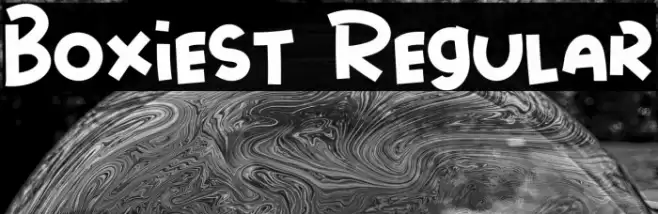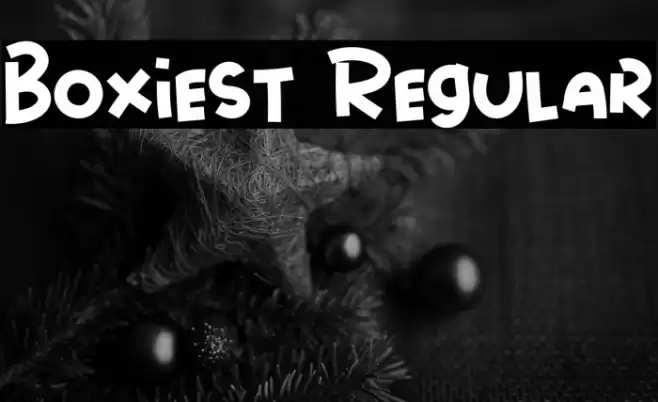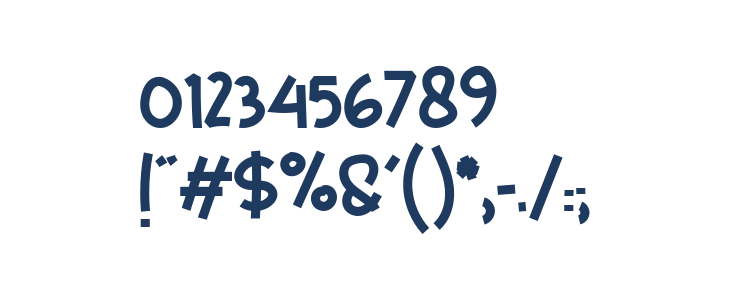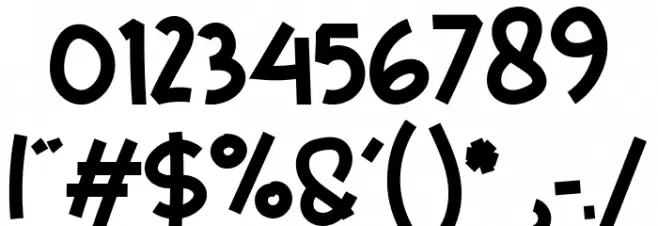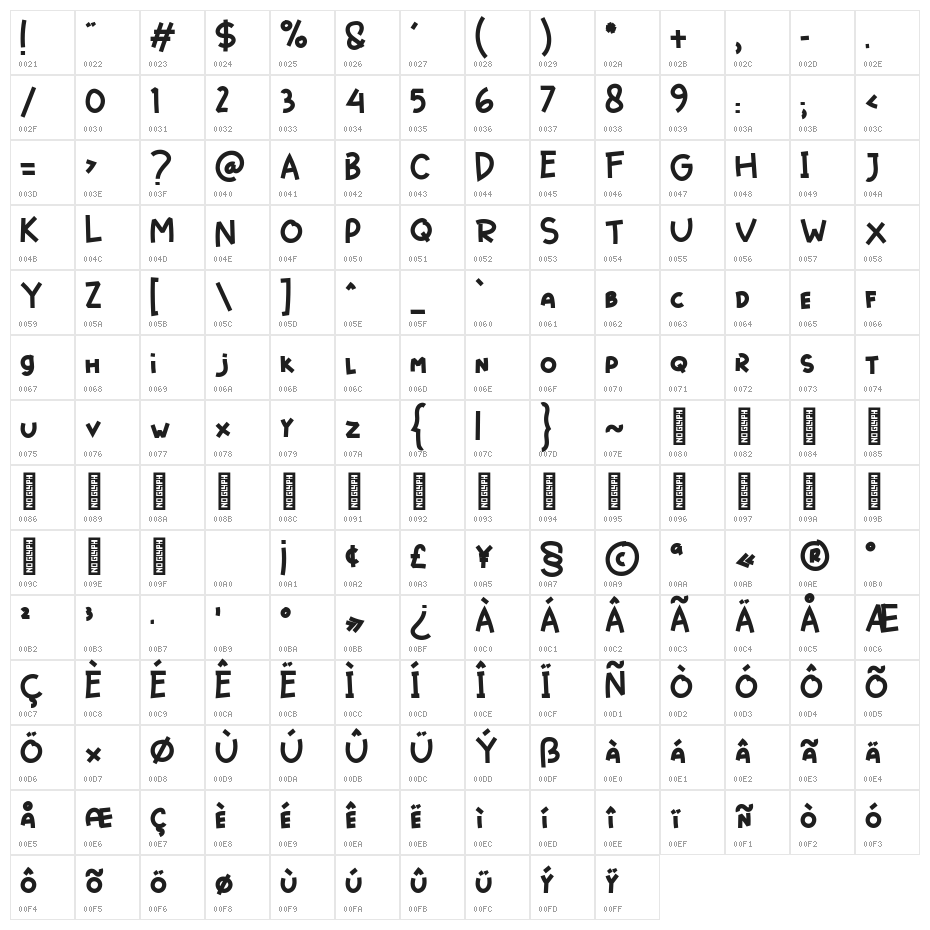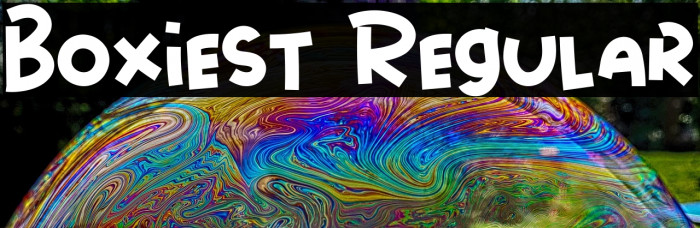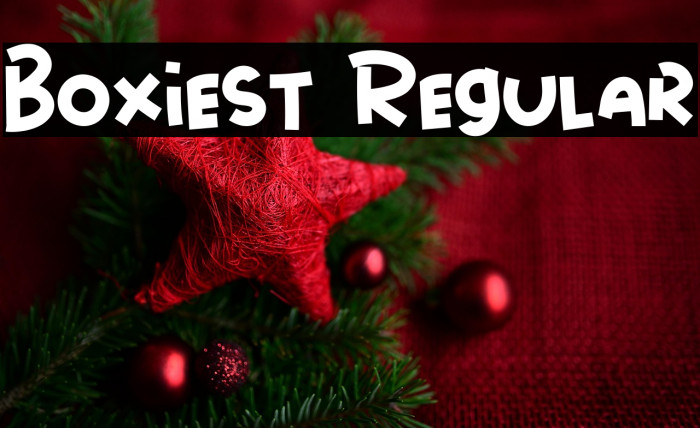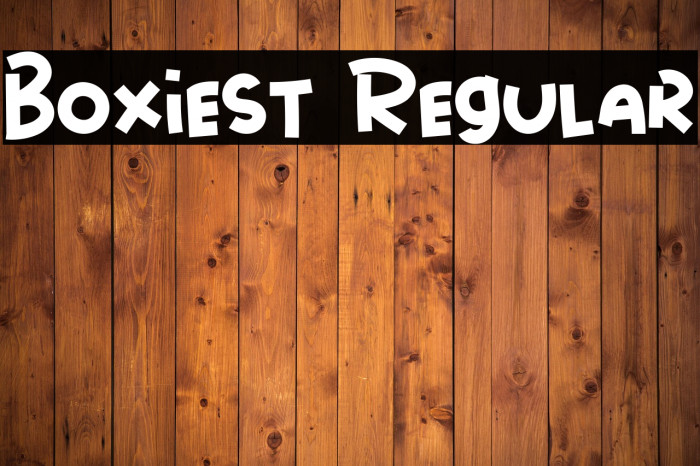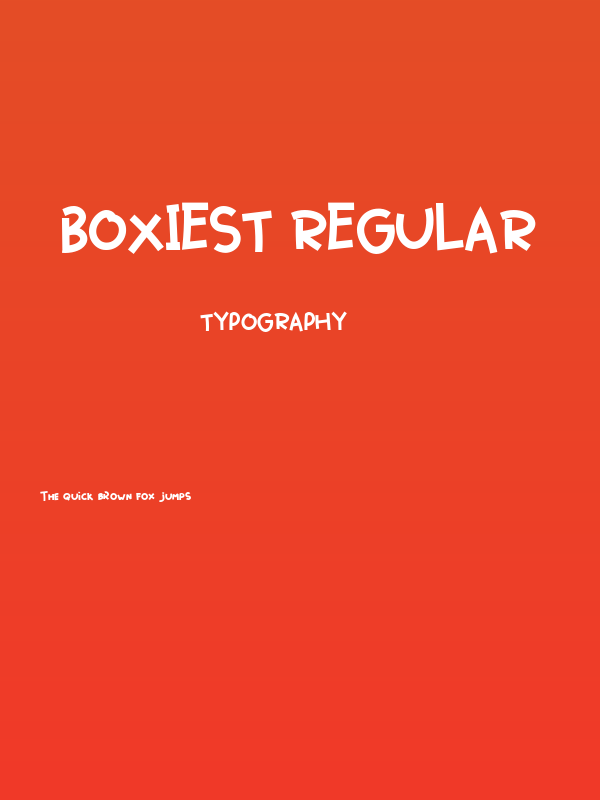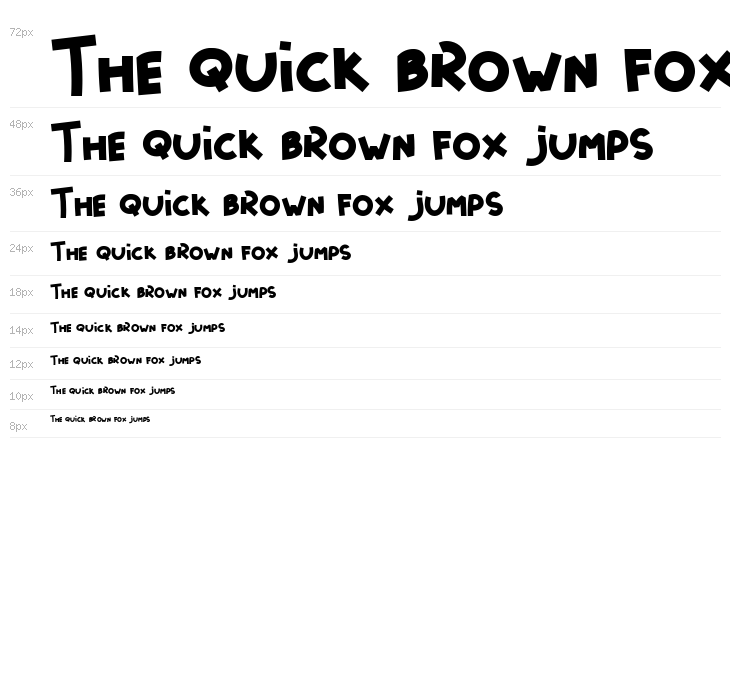
Boxiest Regular Font
Boxiest Regular Description
This font features a playful and bold design with a hand-drawn aesthetic. The characters are slightly irregular, giving them a whimsical and informal appearance. The strokes are thick and consistent, providing a strong visual impact. The overall style is casual and friendly, making it suitable for creative and fun projects. The uppercase and lowercase letters maintain a consistent style, with rounded edges and a slightly uneven baseline that adds to the font's charm. Numbers and special characters are equally bold and maintain the playful theme.
A bold, playful font with a hand-drawn, whimsical style from Uncategorized fonts.
- Proposed Projects: Ideal for children's books, comic strips, playful branding, and informal event invitations.
- Overall Style: Playful, Informal